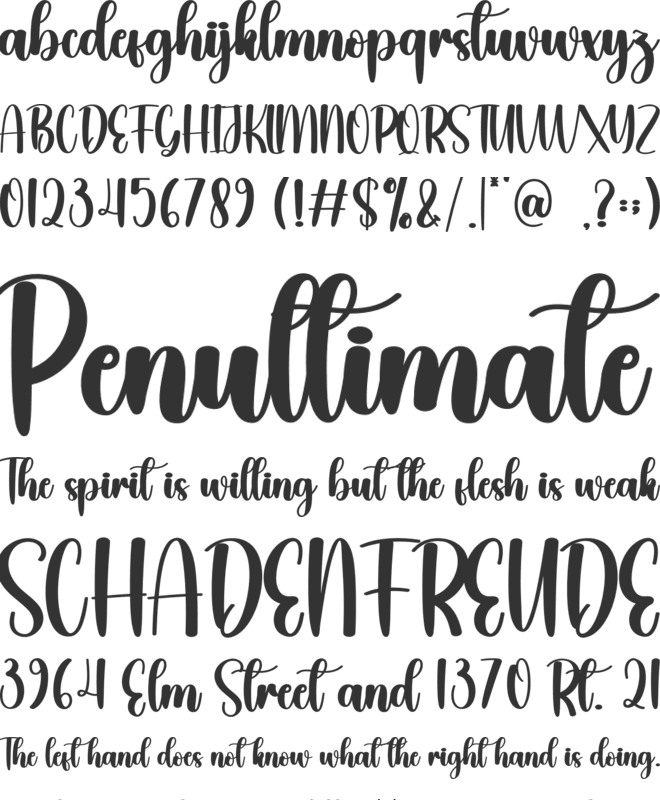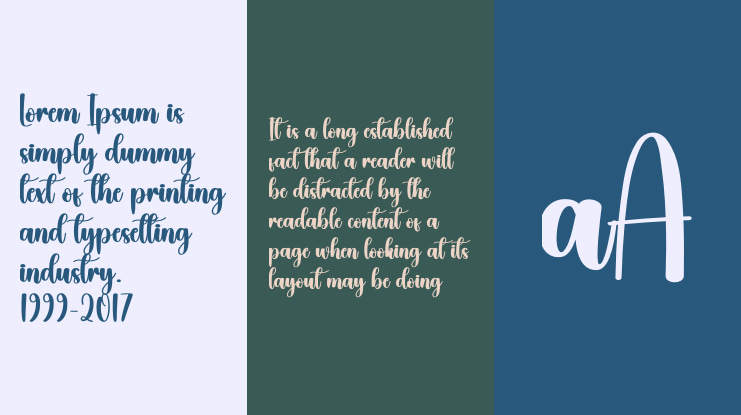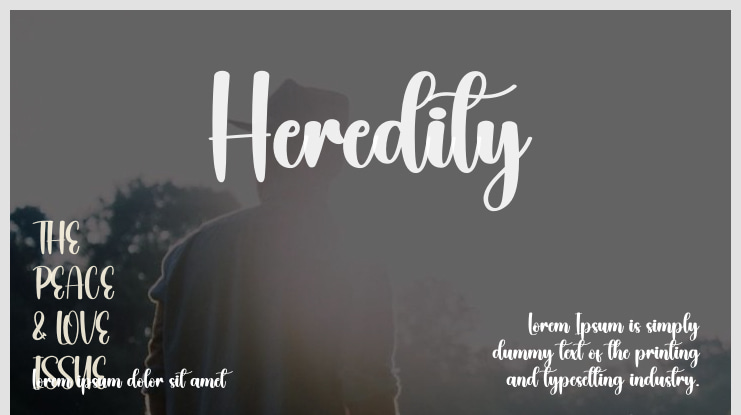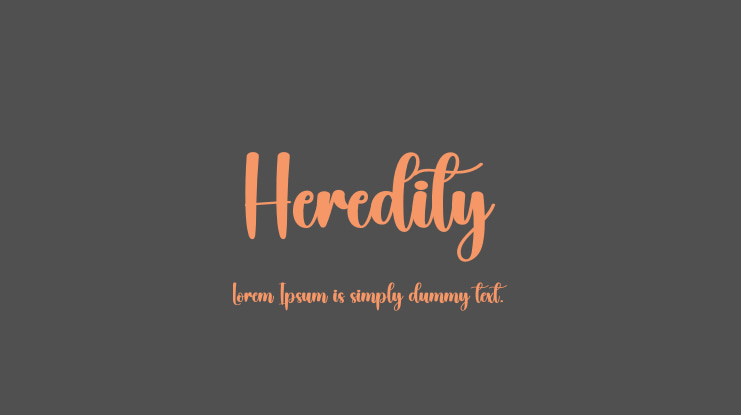
Heredity Font
Experience extraordinary creativity with our special products designed just for you. Our latest style lettering is perfect for a variety of applications including wall displays, wedding invitations, social media logos, advertisements, product packaging, designs, labels, photography, watermarks, invitations, stationery, and any project that requires tasteful handwriting.